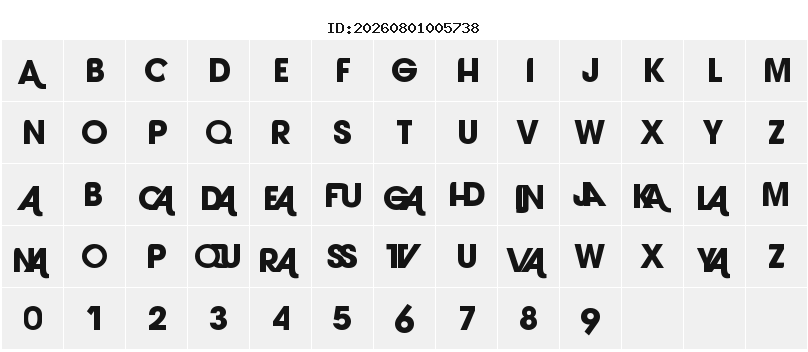
Laranjha Pro Preview
• Font Name: Laranjha Pro
• Font Style: Reg
• Font ID: Laranjha Pro Reg
• Full Font Name: Laranjha Pro Reg
• Designer: Herb Lubalin and Tom Carnase
About Laranjha Pro.ttf
Laranjha Pro.ttf is a modern, elegant sans-serif font designed for ultimate readability and visual harmony. Perfect for branding, headlines, web design, and print materials.